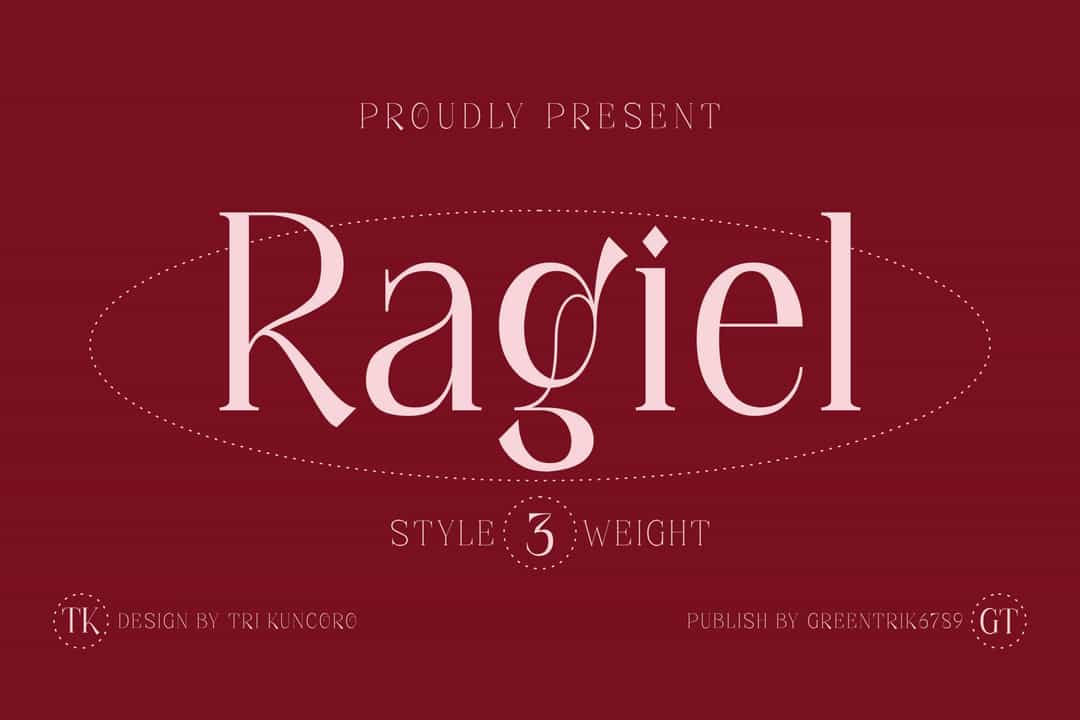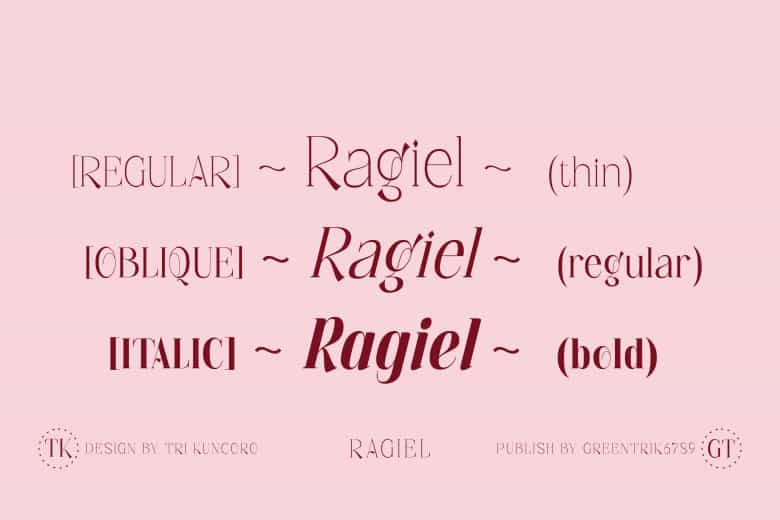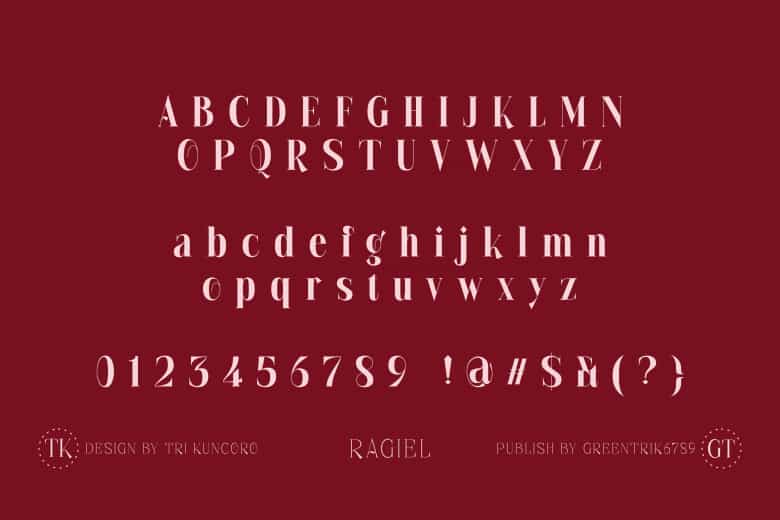
Ragiel is an elegant serif font. Featuring uppercase letters, lowercase letters, numeric, and symbols. You will be charmed by its stunning beauty as you use this font for designing stunning wedding invitations, stationary pieces, captivating tweets on social networks and so much more!